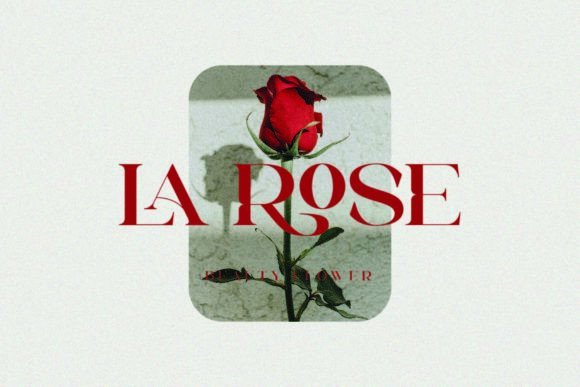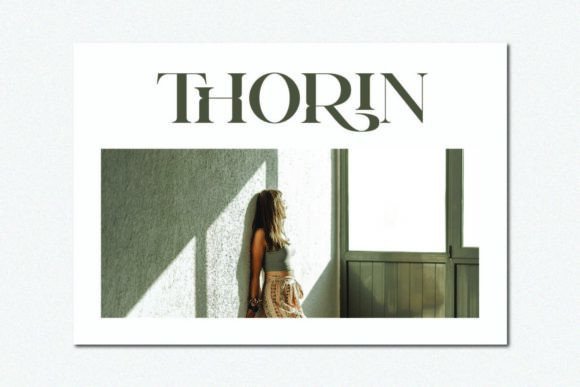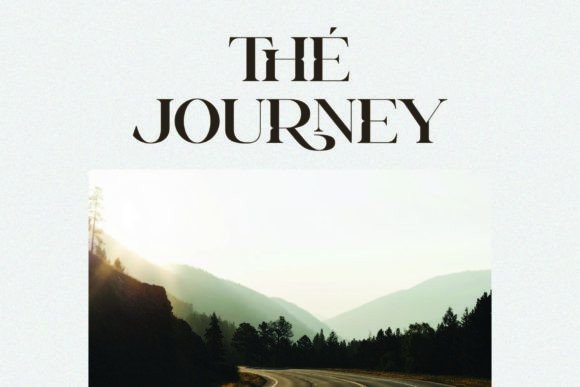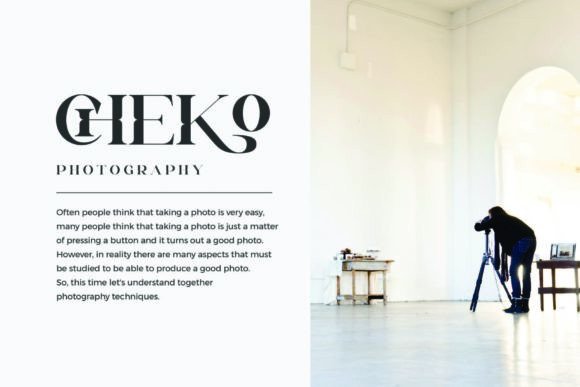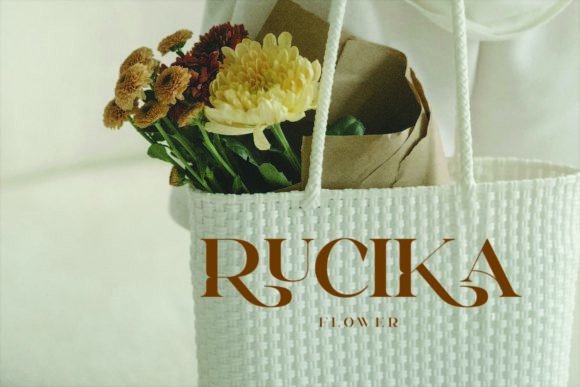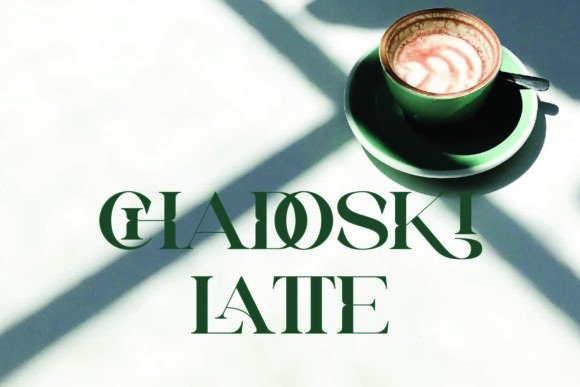
Introducing Erigo Font: The Ultimate Stylish Ligature Typeface for Modern Designers
In the world of typography, a font can make or break a design. For designers and crafters, finding the perfect typeface that combines style, elegance, and versatility is a constant quest. This is where Erigo Font comes in – a stunning, stylish ligature typeface inspired by the famous minimalist logo. Erigo Font is perfect for designing templates, brochures, videos, advertising branding, logos, and more.
The Inspiration Behind Erigo Font
Erigo Font draws inspiration from the simplicity and elegance of minimalist design. The font’s creator aimed to capture the essence of modern typography, blending simplicity with sophistication. The result is a typeface that exudes professionalism and style, making it an excellent choice for designers seeking a font that can elevate their work.
Key Features of Erigo Font
- Stylish Ligatures: Erigo Font boasts beautiful ligatures that add a touch of elegance to any design. These ligatures seamlessly connect letters, creating a fluid and harmonious visual experience.
- Minimalist Aesthetic: The font’s minimalist design ensures that it remains clean and uncluttered, making it perfect for designs that require a subtle yet sophisticated touch.
- Versatility: Erigo Font is incredibly versatile, suitable for a wide range of design applications, from branding and advertising to video production and more.
- Easy to Read: Despite its stylized nature, Erigo Font remains highly legible, ensuring that your message is conveyed clearly and effectively.
Use Cases for Erigo Font
Erigo Font’s versatility makes it an excellent choice for various design projects. Here are some use cases where Erigo Font truly shines:
- Branding and Logos: Create a lasting impression with Erigo Font, perfect for crafting memorable logos and brand identities.
- Advertising and Marketing: Elevate your advertising and marketing materials with a font that exudes professionalism and style.
- Brochures and Templates: Design stunning brochures, templates, and other print materials that showcase your brand’s personality.
- Video Production: Use Erigo Font in your video productions to add a touch of sophistication and elegance to your titles, subtitles, and lower-thirds.
Why Choose Erigo Font?
With so many fonts available, why choose Erigo Font? Here are a few compelling reasons:
- Unique Style: Erigo Font offers a distinctive style that sets it apart from more traditional typefaces.
- Highly Legible: Despite its stylized nature, Erigo Font remains easy to read, ensuring your message is conveyed effectively.
- Time-Saving: With Erigo Font, you can create professional-looking designs quickly, saving you time and effort.
Erigo Font is an exceptional addition to any designer’s toolkit. Its stylish ligatures, minimalist aesthetic, and versatility make it perfect for a wide range of design applications. Whether you’re a seasoned designer or a crafty DIY enthusiast, Erigo Font is sure to elevate your designs and help you create stunning visual experiences.
So why wait? Discover the power of Erigo Font and take your designs to the next level. With its unique style, legibility, and versatility, Erigo Font is the perfect choice for designers and crafters looking to create memorable and impactful designs.